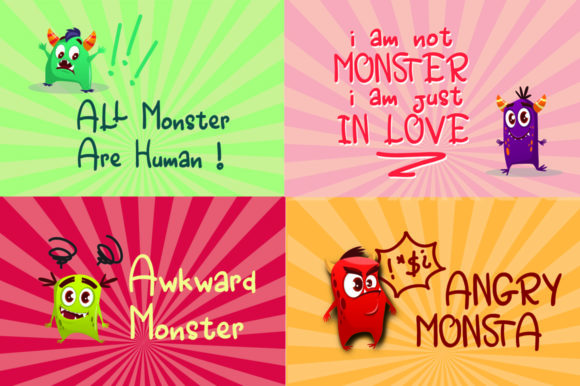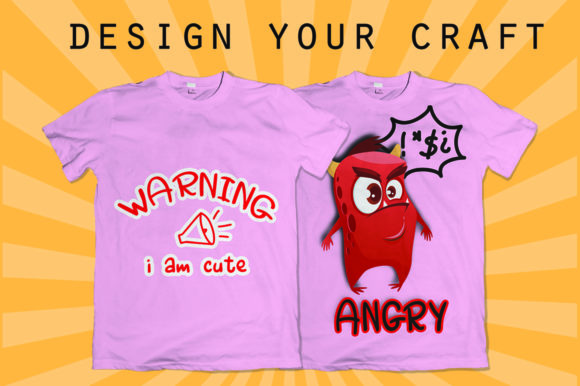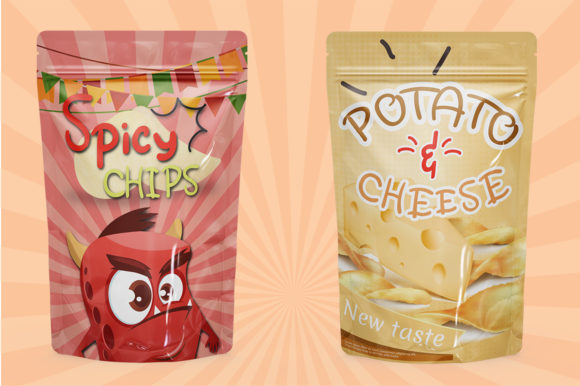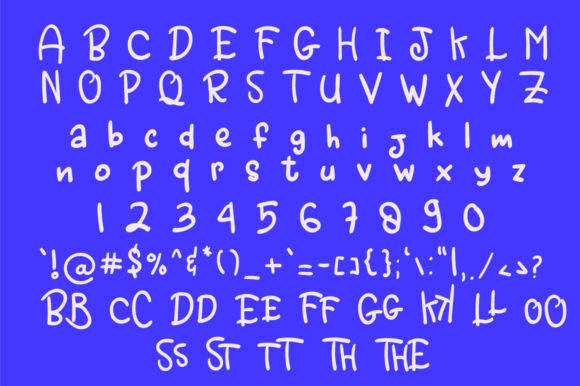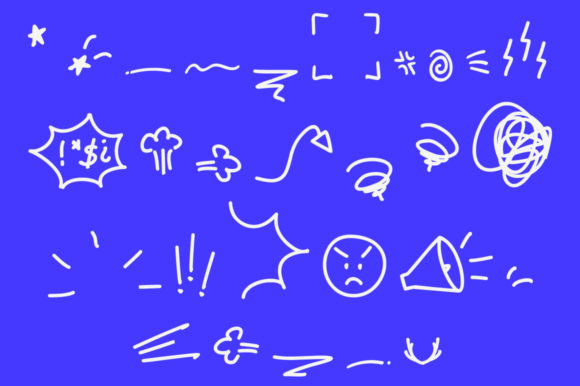
Unleash Your Creativity with Angry Monsta Font: The Ultimate Handwritten Font for Designers and Crafters
Are you tired of using the same old fonts in your designs? Do you want to add a touch of personality and whimsy to your projects? Look no further than the Angry Monsta Font, a playful and expressive handwritten font that’s sure to bring a smile to your face. In this article, we’ll dive into the features and benefits of this amazing font, and explore how it can elevate your designs to the next level.
What is Angry Monsta Font?
The Angry Monsta Font is a unique and charming handwritten font that’s perfect for designers and crafters who want to add a dash of fun and humor to their work. This font is not just a collection of letters and numbers – it’s an entire personality that can be infused into your designs. With its smooth and flowing lines, the Angry Monsta Font has a playful feel that’s sure to capture the attention of your audience.
Key Features of Angry Monsta Font
So what sets the Angry Monsta Font apart from other fonts out there? Here are just a few of its key features:
- Expressive and Smooth Lines: The Angry Monsta Font has a smooth and flowing design that’s perfect for creating eye-catching headlines, titles, and text.
- Playful Feel: This font has a fun and playful personality that’s sure to bring a smile to your face.
- 26 Fun Doodles: The Angry Monsta Font comes with 26 fun and quirky doodles that can be used to add an extra touch of personality to your designs.
- Handwritten Style: The Angry Monsta Font is a true handwritten font, with each letter and number carefully crafted to create a unique and authentic look.
How to Use Angry Monsta Font in Your Designs
So how can you use the Angry Monsta Font in your designs? Here are just a few ideas to get you started:
- Headlines and Titles: Use the Angry Monsta Font to create eye-catching headlines and titles that grab attention.
- Social Media Graphics: Add a touch of personality to your social media graphics with the Angry Monsta Font.
- Invitations and Party Decor: Use the Angry Monsta Font to create fun and playful invitations and party decor.
- Crafting and Scrapbooking: The Angry Monsta Font is perfect for crafters and scrapbookers who want to add a personal touch to their projects.
Benefits of Using Angry Monsta Font
So why should you choose the Angry Monsta Font for your designs? Here are just a few benefits:
- Unique and Eye-Catching: The Angry Monsta Font is a true standout, and is sure to grab attention in any design.
- Easy to Read: Despite its playful feel, the Angry Monsta Font is easy to read and understand.
- Versatile: The Angry Monsta Font can be used in a wide range of designs, from social media graphics to invitations and party decor.
- Fun and Playful: The Angry Monsta Font is the perfect way to add a touch of humor and whimsy to your designs.
In conclusion, the Angry Monsta Font is a unique and expressive handwritten font that’s perfect for designers and crafters who want to add a touch of personality and whimsy to their work. With its smooth and flowing lines, playful feel, and 26 fun doodles, this font is sure to bring a smile to your face and elevate your designs to the next level. So why wait? Download the Angry Monsta Font today and start creating!
- The Angry Monsta Font is a unique and expressive handwritten font.
- It has a smooth and flowing design with a playful feel.
- The font comes with 26 fun and quirky doodles.
- It’s perfect for designers and crafters who want to add a touch of personality and whimsy to their work.